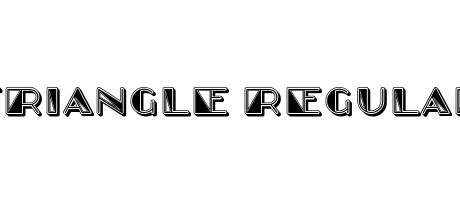
Triangle
Triangle Regular is a bold, geometric sans-serif font. Its design features strong, blocky letterforms with subtle inner triangular shapes adding a unique, almost embossed texture. The overall feel is simultaneously modern and retro, suggesting a blend of vintage and contemporary design aesthetics. It projects confidence and a touch of playful sophistication.